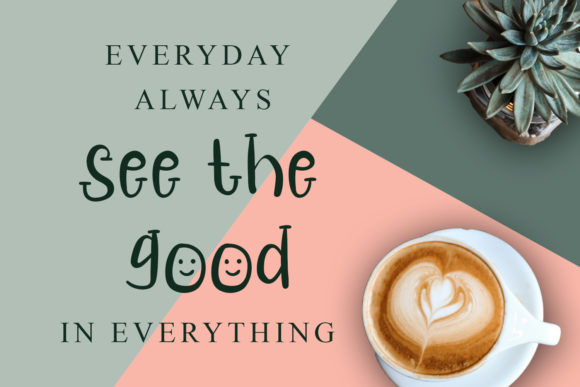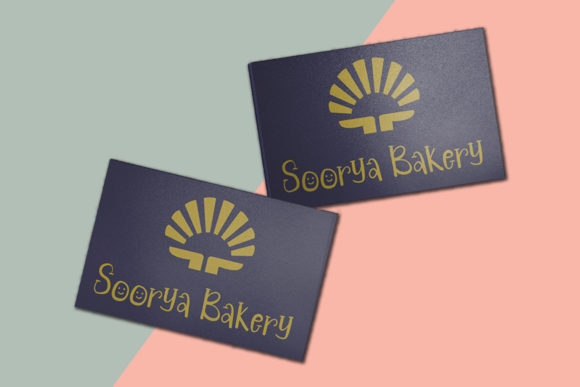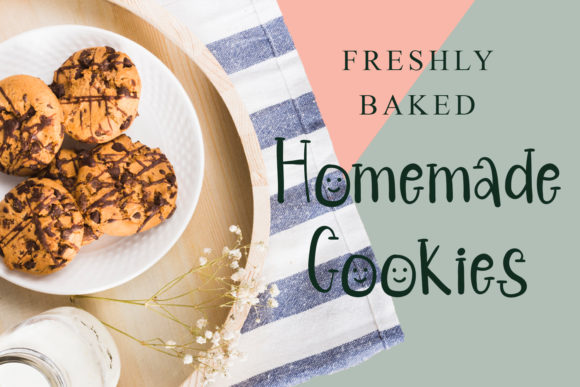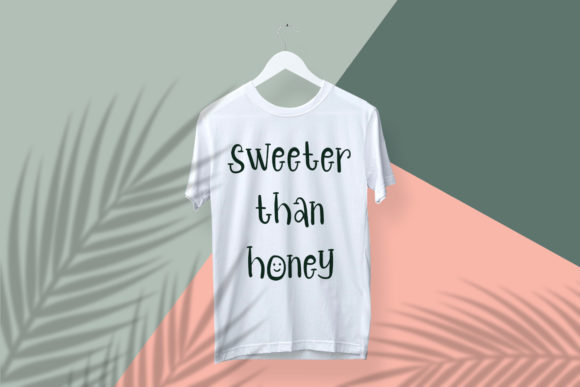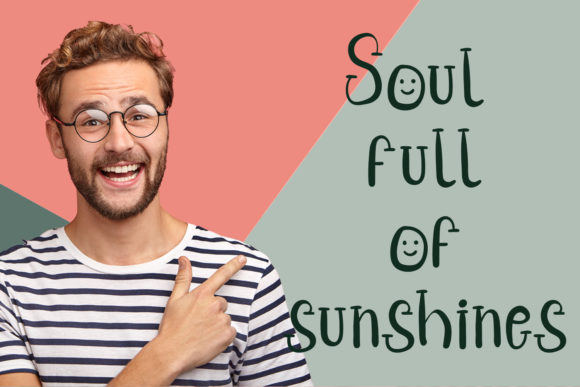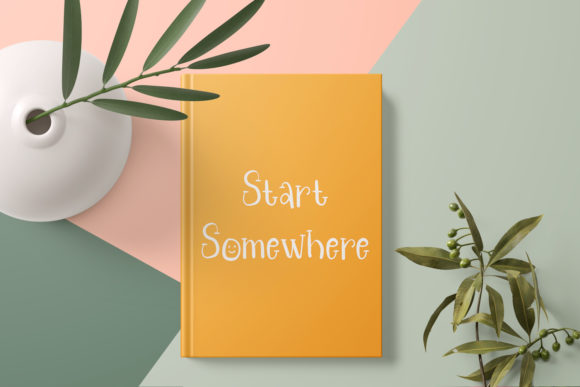
Adoorably Font: The Fun and Quirky Handwritten Font to Elevate Your Creative Projects
Are you tired of using the same old fonts in your creative projects? Look no further! Adoorably font is here to add a touch of fun and quirkiness to your designs. This handwritten font is perfect for crafters, designers, and anyone looking to make their ideas stand out. In this article, we’ll dive into the world of Adoorably font and explore how it can elevate your creative projects.
What is Adoorably Font?
Adoorably font is a unique and playful handwritten font that is sure to capture attention. Its irregularities and imperfections give it a charming, hand-crafted feel that is perfect for adding a personal touch to your designs. Whether you’re working on a logo, branding project, or social media graphics, Adoorably font is sure to make your creative ideas pop.
Characteristics of Adoorably Font
So, what makes Adoorably font so special? Here are a few of its key characteristics:
- Handwritten feel: Adoorably font has a genuine handwritten feel that is perfect for adding a personal touch to your designs.
- Quirky and playful: This font is not for the faint of heart! Adoorably font is fun, quirky, and sure to add a smile to your audience’s faces.
- Unique irregularities: Adoorably font has a number of irregularities and imperfections that give it a charming, hand-crafted feel.
- Highly versatile: Whether you’re working on a logo, branding project, or social media graphics, Adoorably font is sure to adapt to your needs.
How to Use Adoorably Font in Your Creative Projects
Now that we’ve covered the basics of Adoorably font, let’s talk about how to use it in your creative projects. Here are a few ideas to get you started:
- Logos and branding: Adoorably font is perfect for creating unique and memorable logos and branding materials.
- Social media graphics: Add a touch of personality to your social media graphics with Adoorably font.
- Invitations and party decor: Adoorably font is perfect for creating fun and playful invitations and party decor.
- DIY crafts: Use Adoorably font to add a personal touch to your DIY crafts, such as signs, banners, and more.
Tips for Pairing Adoorably Font with Other Fonts
When working with Adoorably font, it’s essential to pair it with other fonts that complement its playful and quirky feel. Here are a few tips for pairing Adoorably font with other fonts:
- Pair with a sans-serif font: Pairing Adoorably font with a clean and simple sans-serif font can help to create a nice contrast and add visual interest to your design.
- Use a bold font to create contrast: Using a bold font in combination with Adoorably font can help to create contrast and draw attention to specific parts of your design.
- Experiment with script fonts: Adoorably font pairs well with other script fonts, so don’t be afraid to experiment and find the perfect combination for your design.
In conclusion, Adoorably font is a fun and quirky handwritten font that is sure to elevate your creative projects. Its unique irregularities and imperfections give it a charming, hand-crafted feel that is perfect for adding a personal touch to your designs. Whether you’re a designer, crafter, or simply someone looking to add some personality to your creative projects, Adoorably font is a great choice. So why not give it a try and see how it can make your creative ideas stand out?
- Adoorably font is a fun and quirky handwritten font.
- It has a unique, hand-crafted feel with irregularities and imperfections.
- Adoorably font is highly versatile and can be used in a variety of creative projects.
- It pairs well with sans-serif fonts, bold fonts, and script fonts.